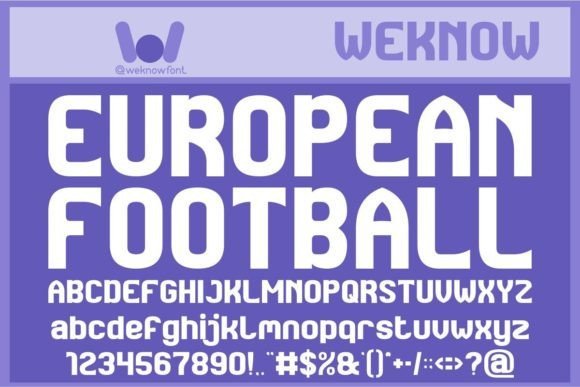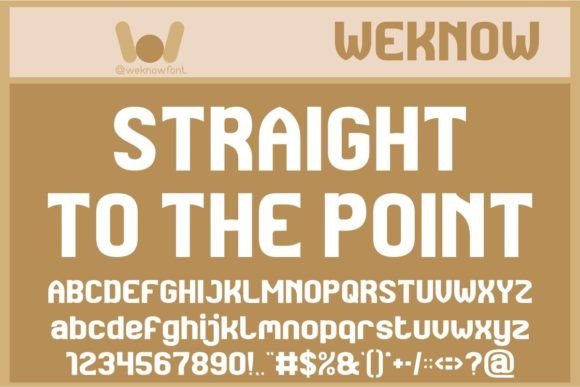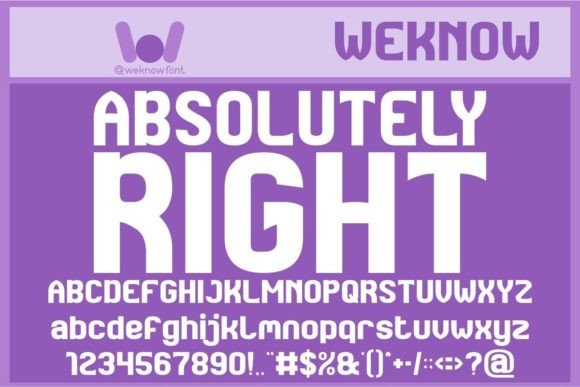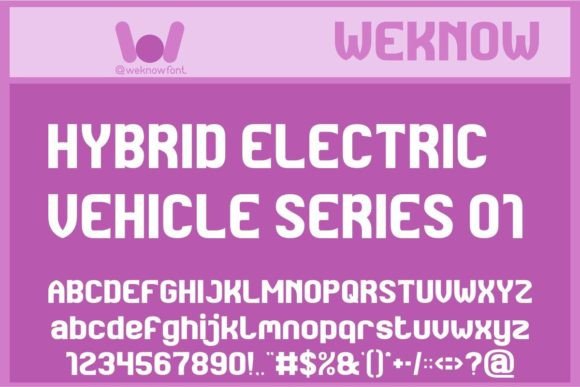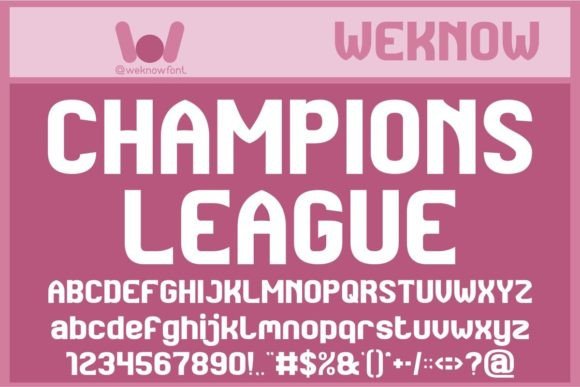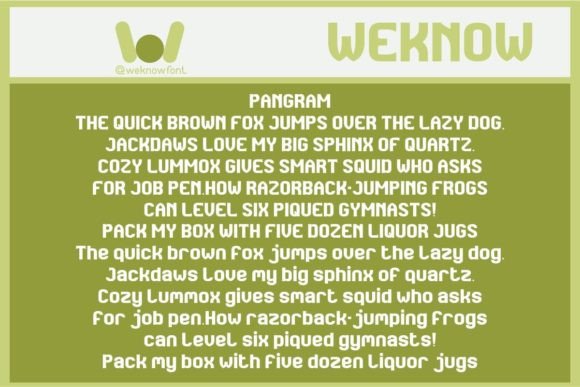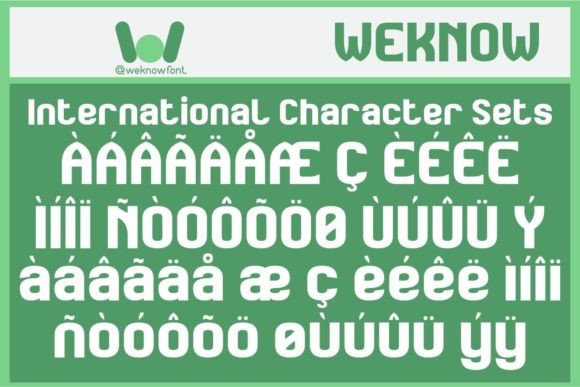
The Perfect Kick-Off for Your Next Design Project
Imagine you’re in a stadium, surrounded by thousands of screaming fans, and you’re about to unveil your brand’s new identity. The anticipation is palpable, and you need a font that can convey the intensity and passion of the moment. That’s where the European Football Font comes in – a sleek, sporty sans serif typeface designed to make your designs stand out.
This versatile font is more than just a stylish choice; it’s a powerful tool that can elevate your brand’s corporate identity and capture the viewer’s attention. Whether you’re working on a project for apparel, music, movies, or games, the European Football Font is an exceptional choice that can add a touch of bold chicness to your designs.
European Football Font Key Features
- Font Family: The European Football Font is a sans-serif font designed specifically for displaying football scores and statistics.
- Unique Characteristics: The font features a distinctive design with bold numerals and subtle styling to differentiate between teams, making it ideal for displaying match results and statistics.
- Character Set: The font includes a comprehensive character set, including uppercase and lowercase letters, numerals, and special characters, ensuring that it can be used for a wide range of applications.
European Football Font Review
I recently had the chance to work with the “European Football Font”, and I must say it’s an interesting choice for any sports-related design project. ✨ One of the things that works well is its unique and dynamic feel, which perfectly captures the excitement and energy of the beautiful game. The font’s bold and playful nature is ideal for creating eye-catching logos, headlines, and graphics that are sure to grab the attention of football fans.
Another advantage of the European Football Font is its versatility. It can be used in a variety of contexts, from stadium signage to social media graphics, and still manage to look stylish and on-brand. ✨ The font’s consistency across different weights and styles also makes it easy to use in a wide range of applications.
Limits and Drawbacks
While the European Football Font is a solid choice for many projects, there are some limitations to consider. ⚠️ One of the main drawbacks is its limited flexibility. The font’s bold and playful nature can sometimes feel overwhelming, making it difficult to use in more subdued or serious contexts.
- May not be suitable for more formal or corporate designs
- Limited flexibility in terms of style and weight
Overall, I would say that the European Football Font is a great choice for sports-related design projects that need a bold and dynamic feel. However, it may not be the best fit for more formal or serious designs.
For optimal results, use the European Football Font in conjunction with bold or italic styles to add emphasis to important text.
The European Football Font is ideal for use in sports-themed designs, such as:
- Soccer-themed posters and flyers.
- Football team logos and branding.
- Sports-themed social media graphics.
Comparison: Inter Font is more geometric and has a slightly more aggressive feel than European Football Font, making it a better choice for modern and edgy designs.